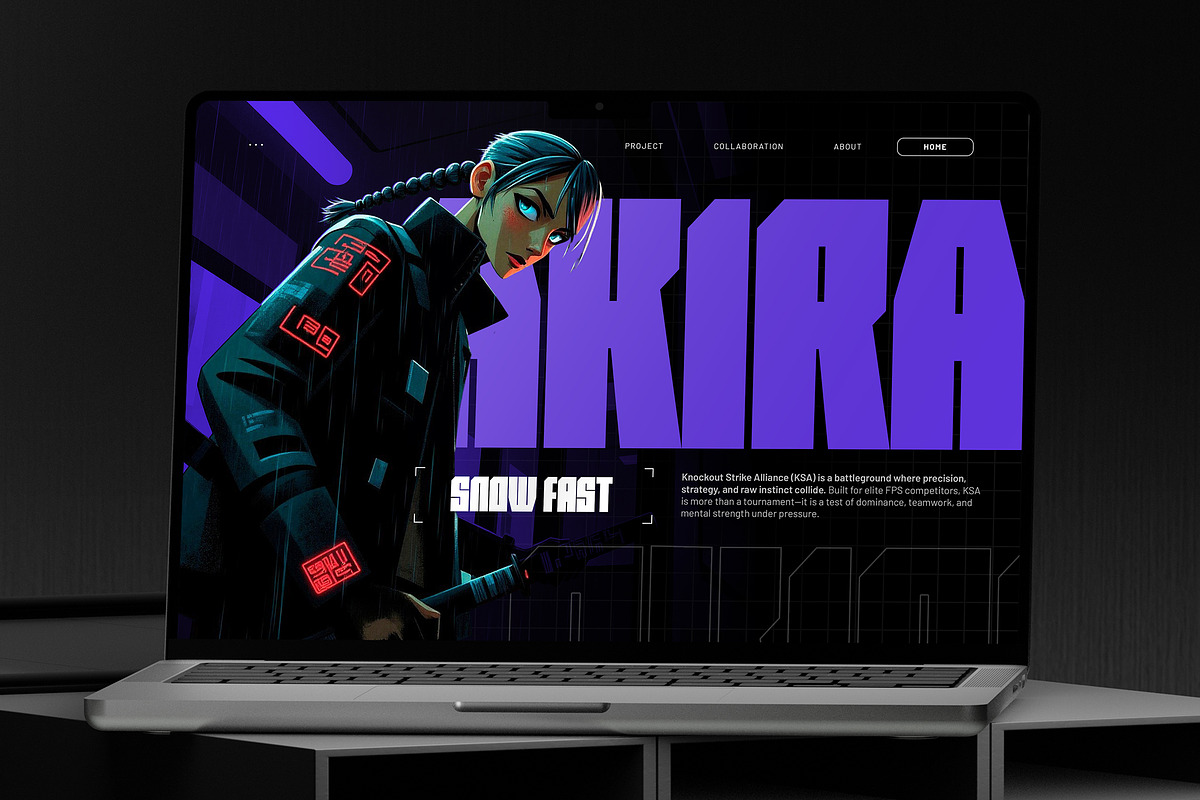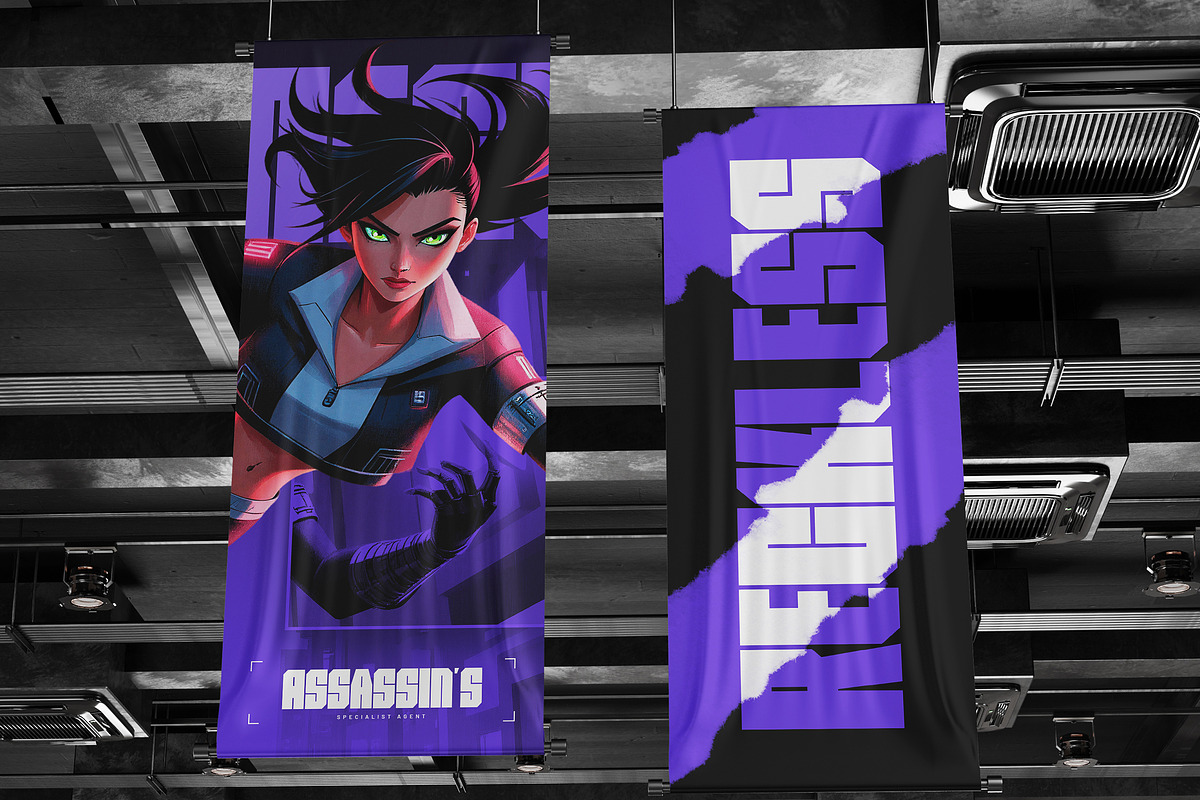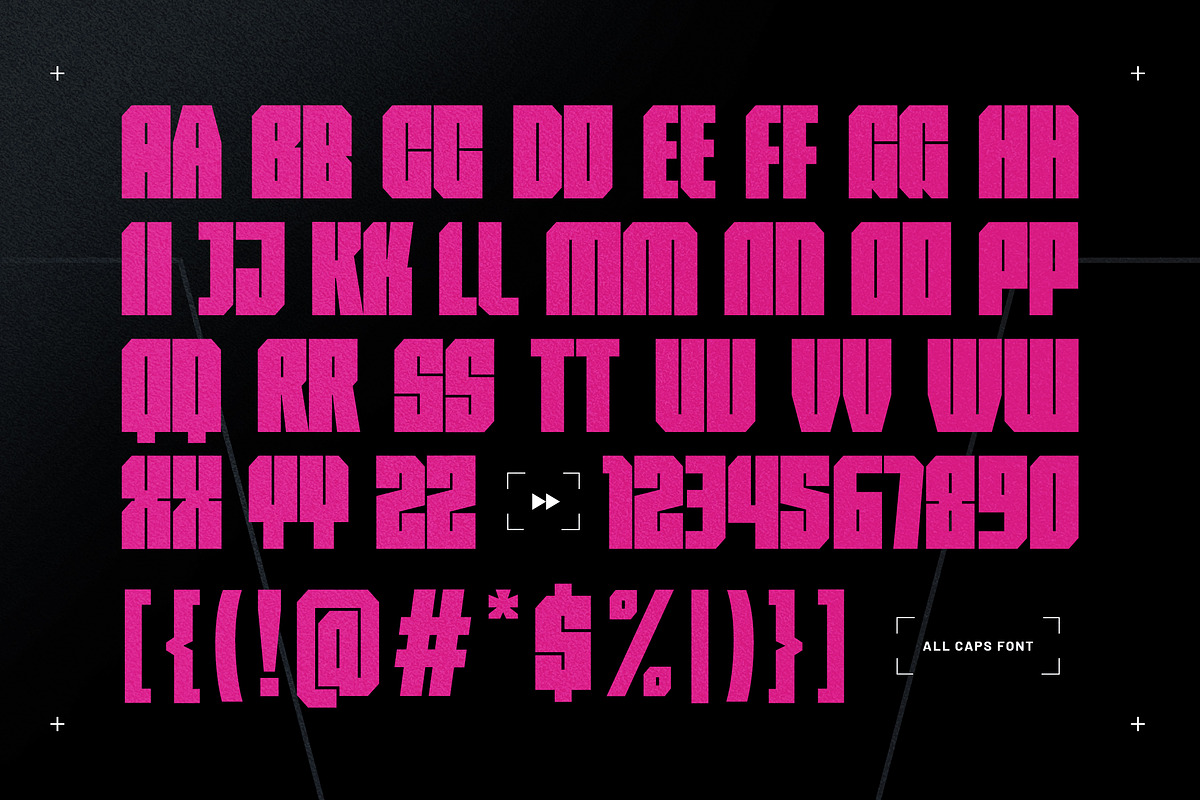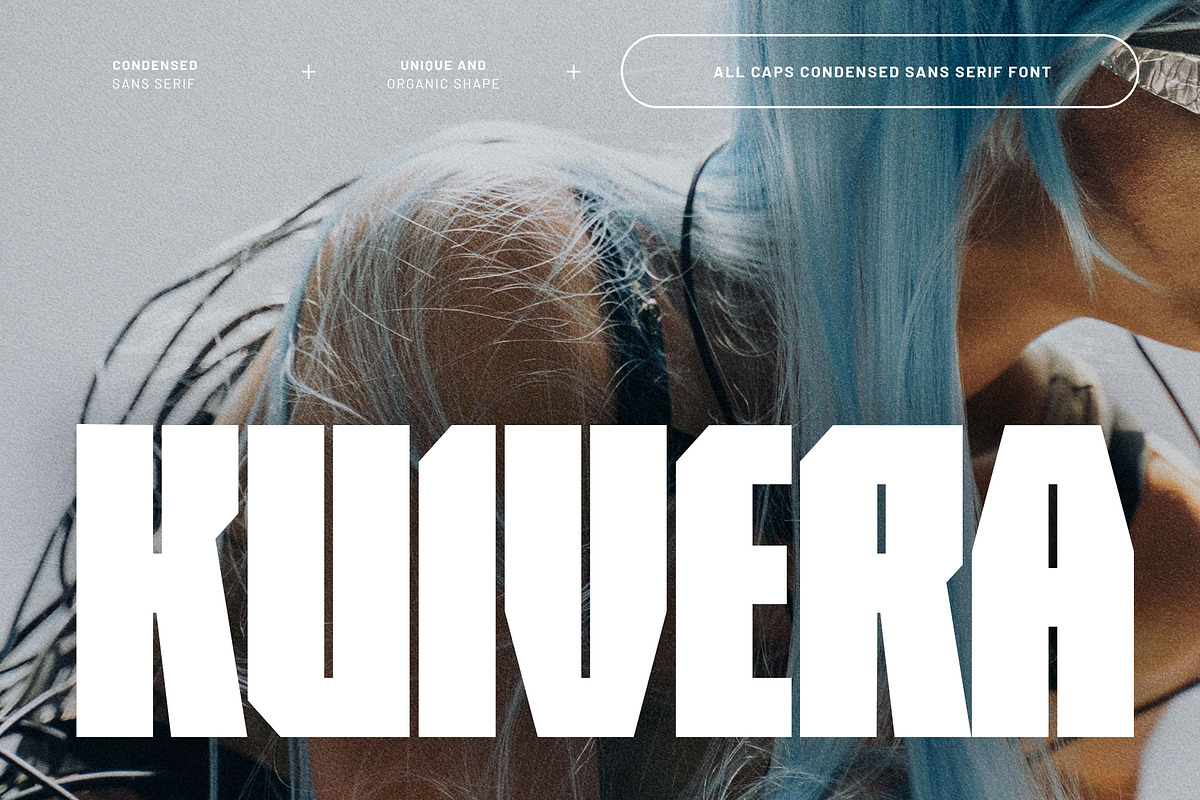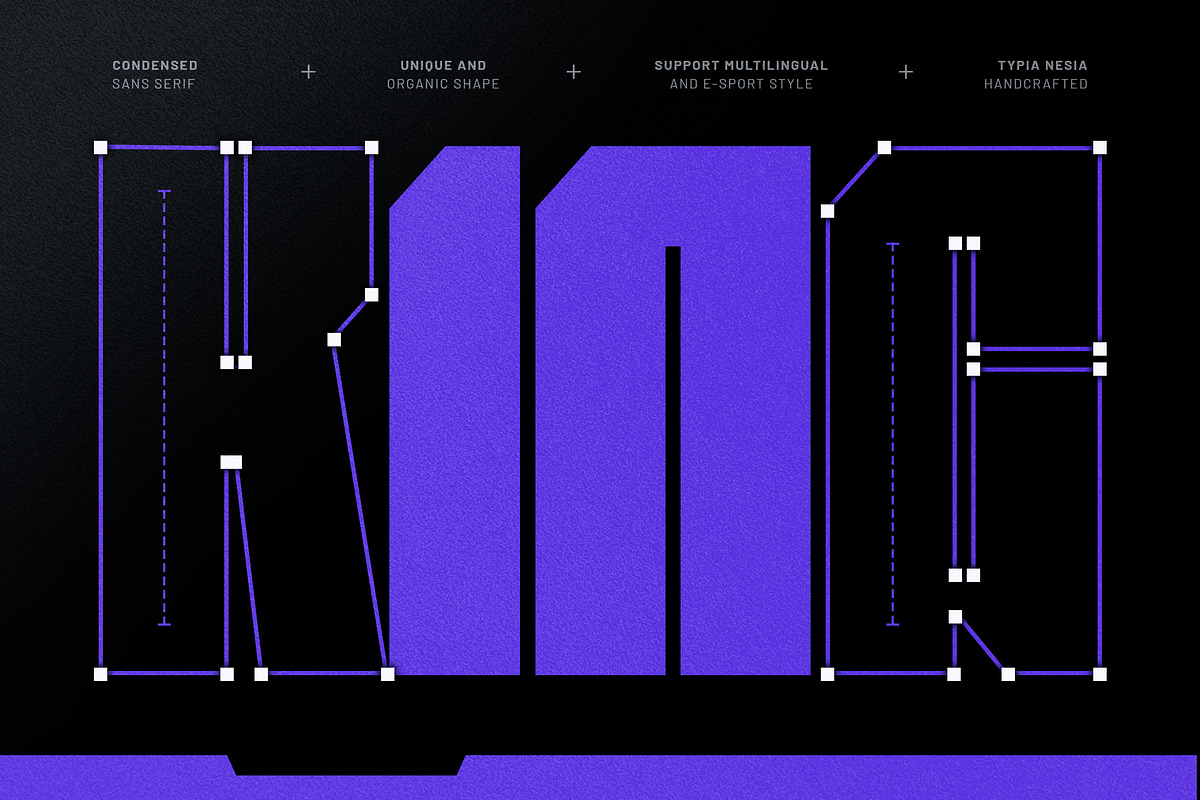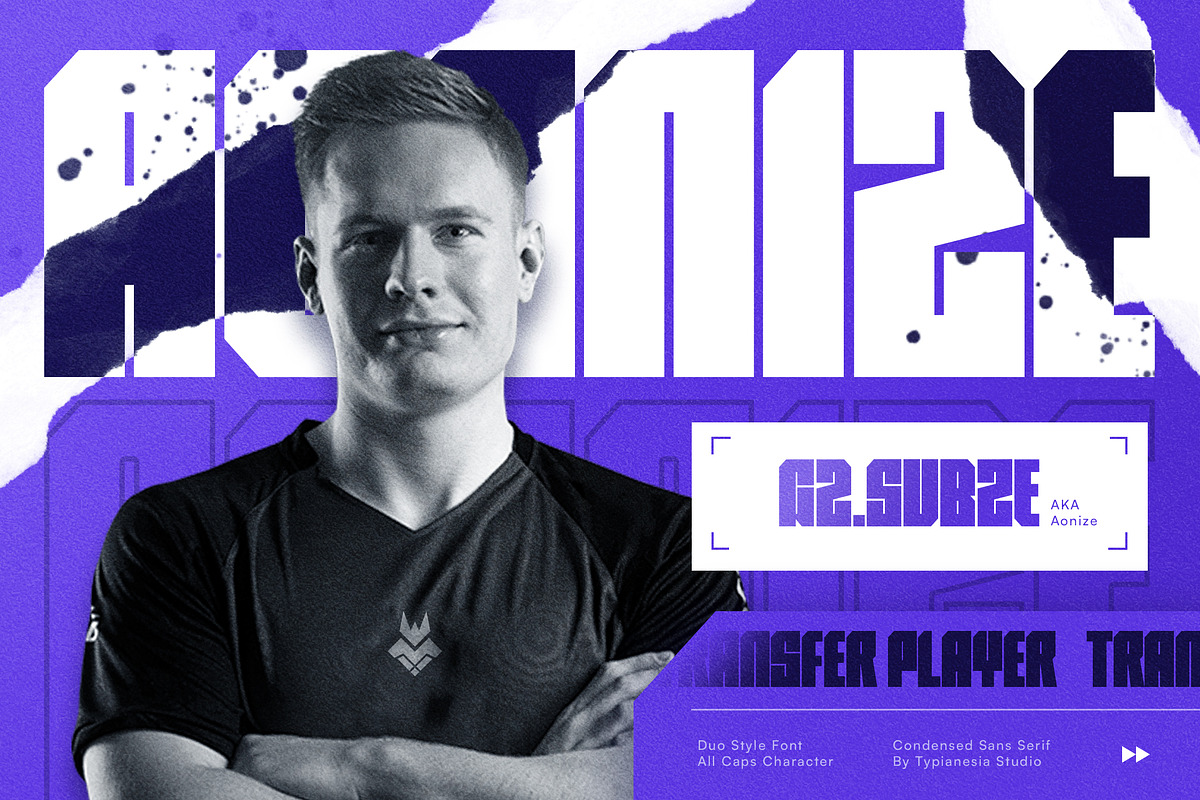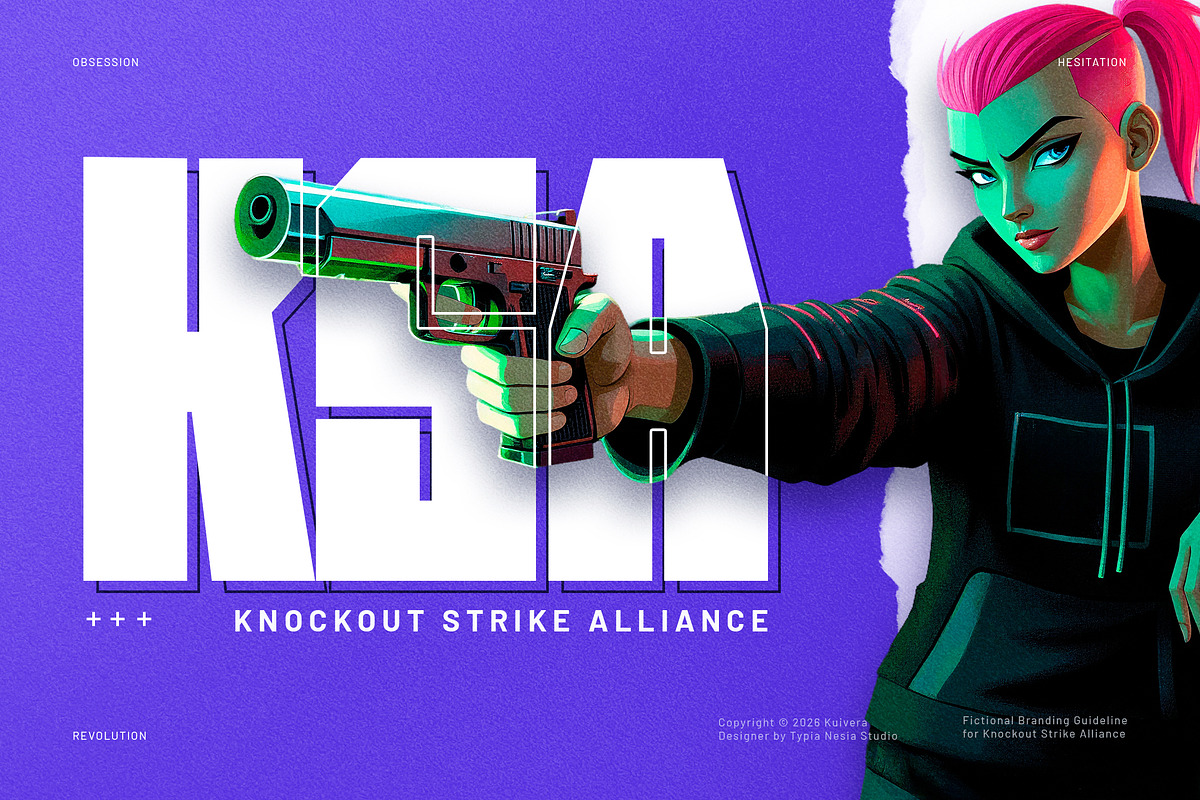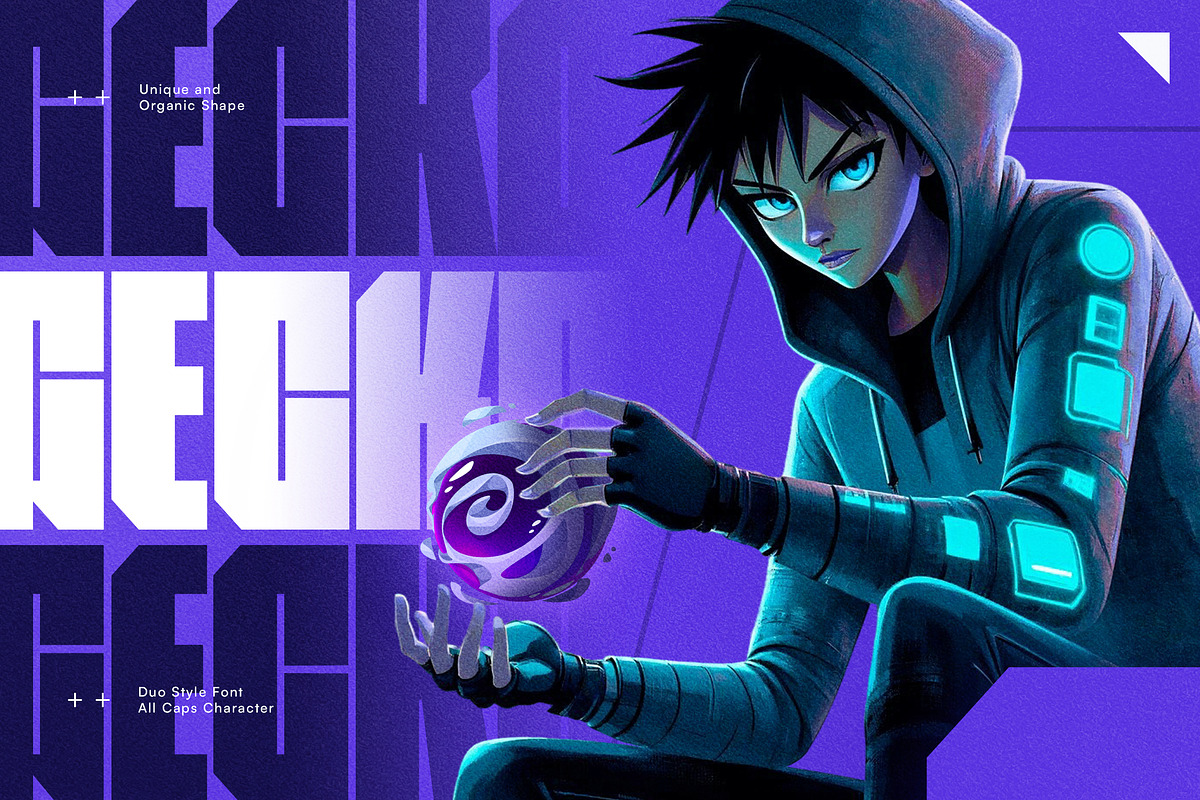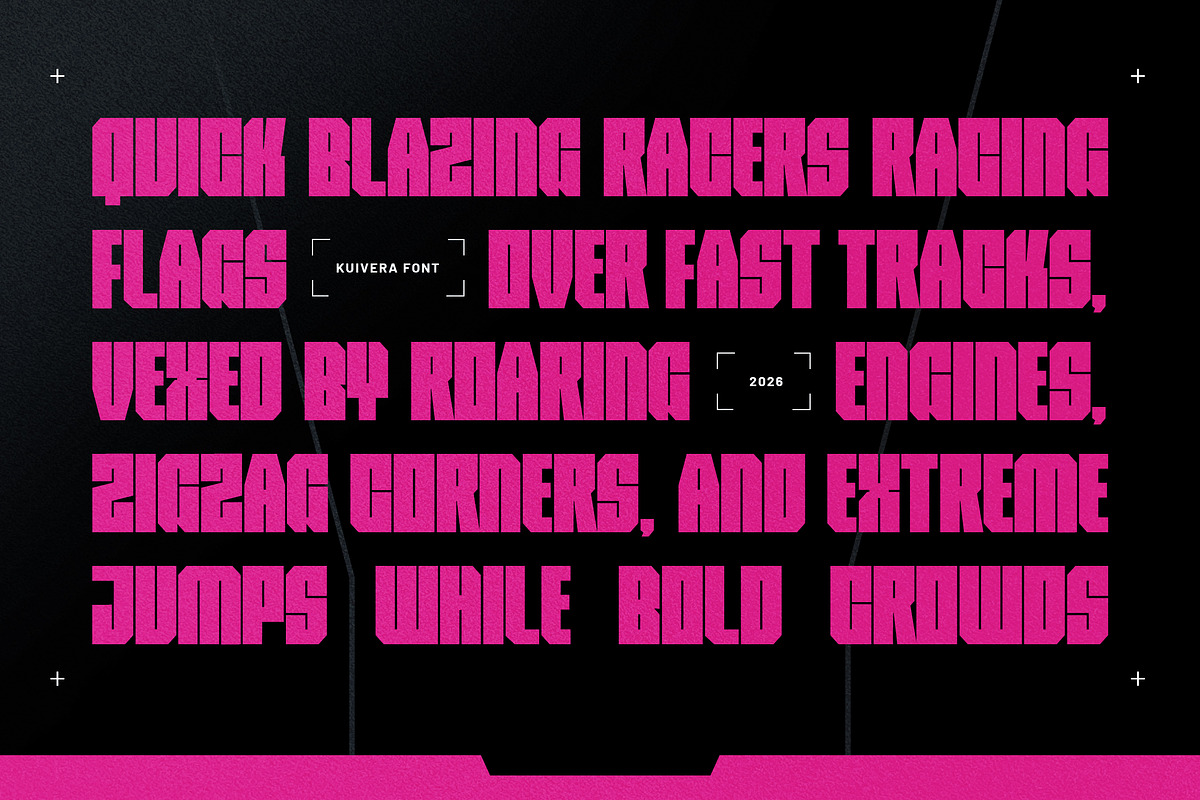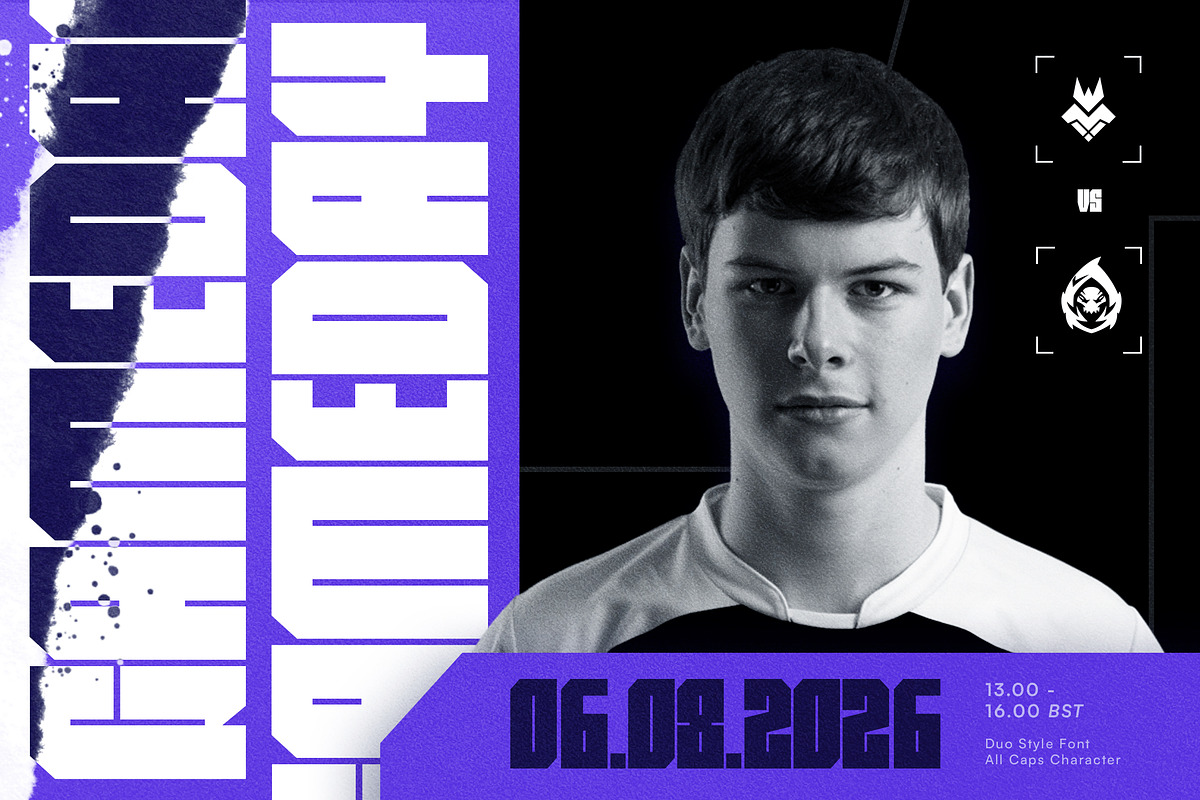
Kuivera - Super Condensed Bold Tech
Kuivera - Super Condensed Bold Tech Font - Modern Minimal Clean Logo Display Font
Kuivera is a modern minimalist condensed sans serif font designed with a bold, tall, and powerful structure that delivers a strong futuristic and techno impression. Featuring super condensed proportions and sharp geometric details, Kuivera is perfect for logos, wordmarks, logotypes, posters, high-impact layouts, tech branding, sci-fi visuals, digital products, headlines, games, modern advertising, and corporate branding that demands a clean yet striking presence. Kuivera blends clean design, tech aesthetics, and contemporary style, ensuring excellent readability while maintaining a strong and confident character.